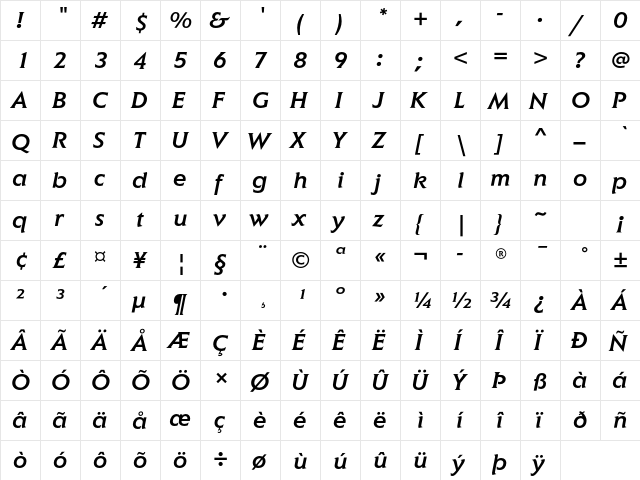
Elan ITC Std Medium Italic
| Designer | Albert Boton |
Design Context for Elan ITC Std Typeface
Elan ITC Std takes a measured approach to typography — its balanced proportions and neutral character make it a reliable workhorse for both digital and print work. The slanted form adds forward momentum and visual energy.